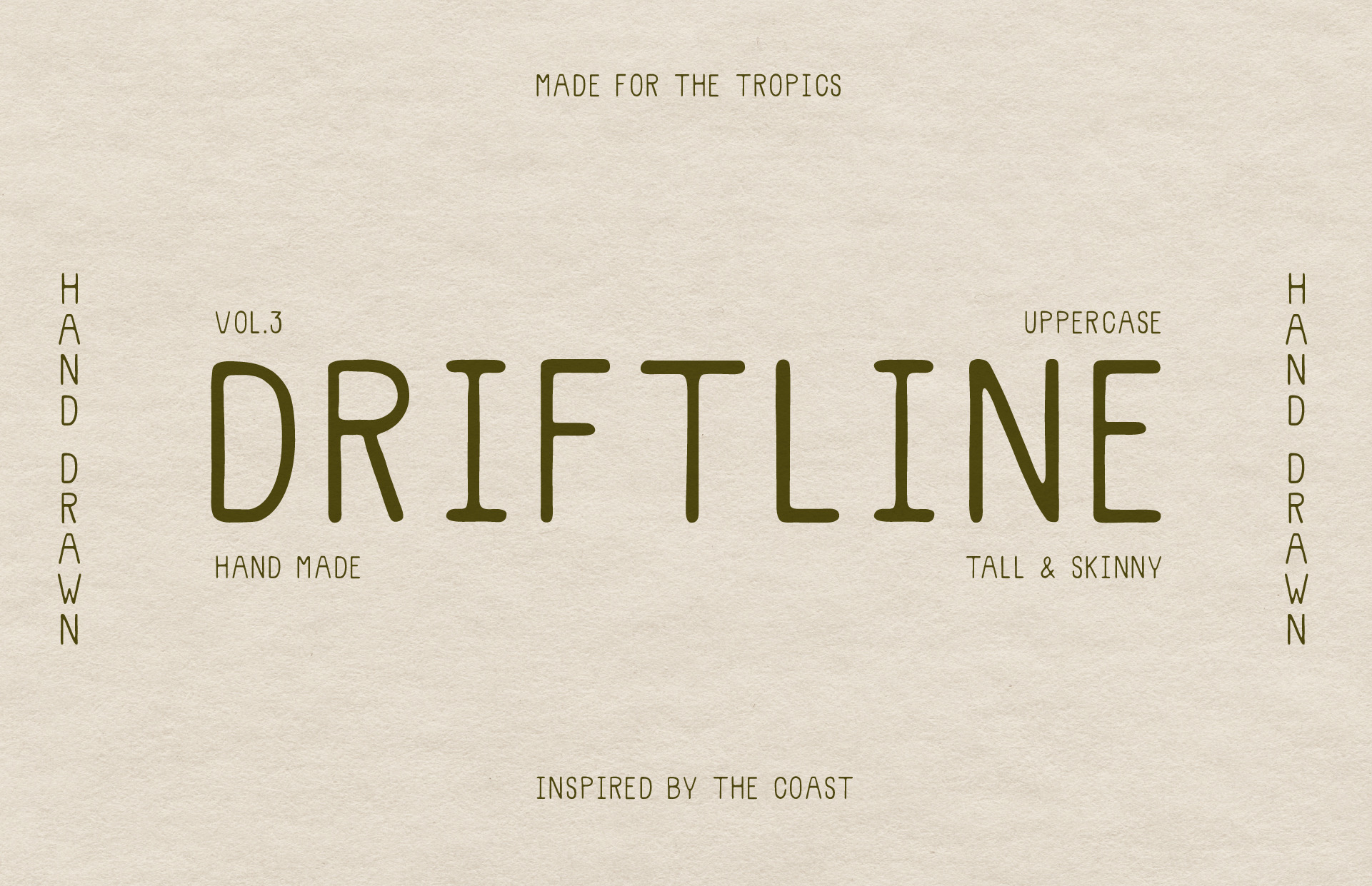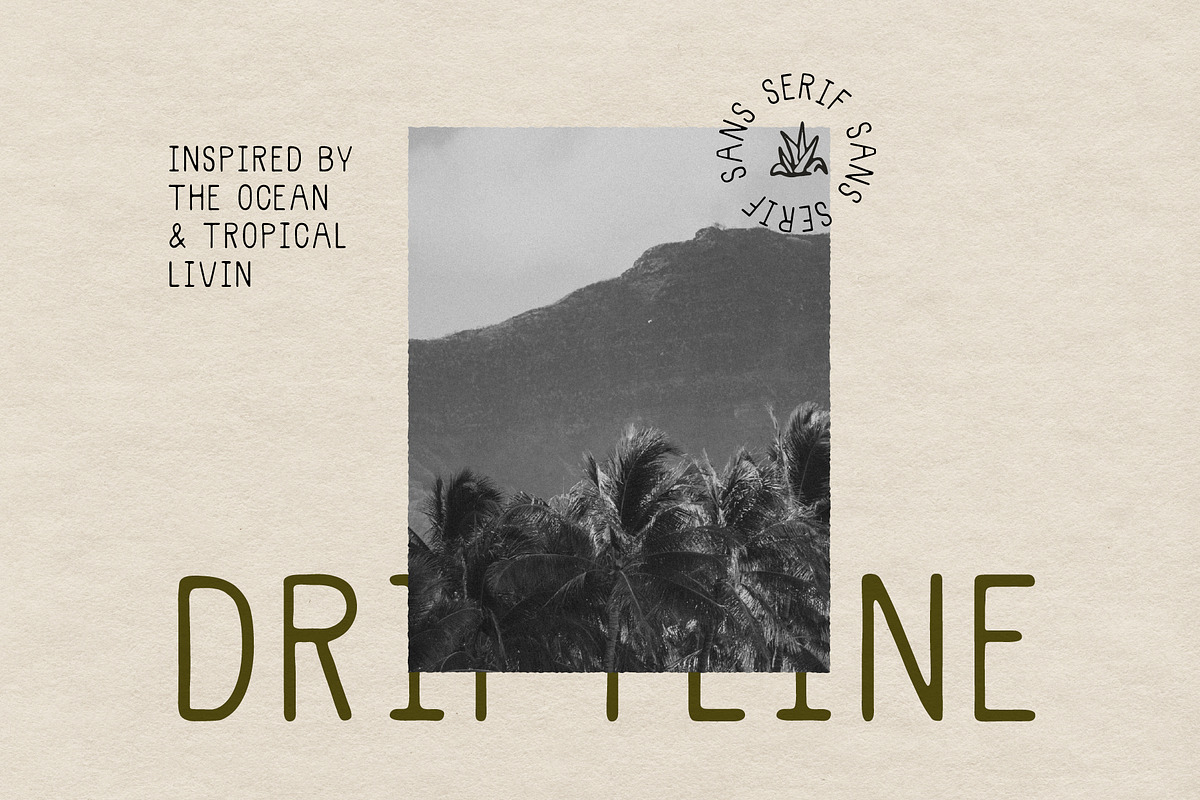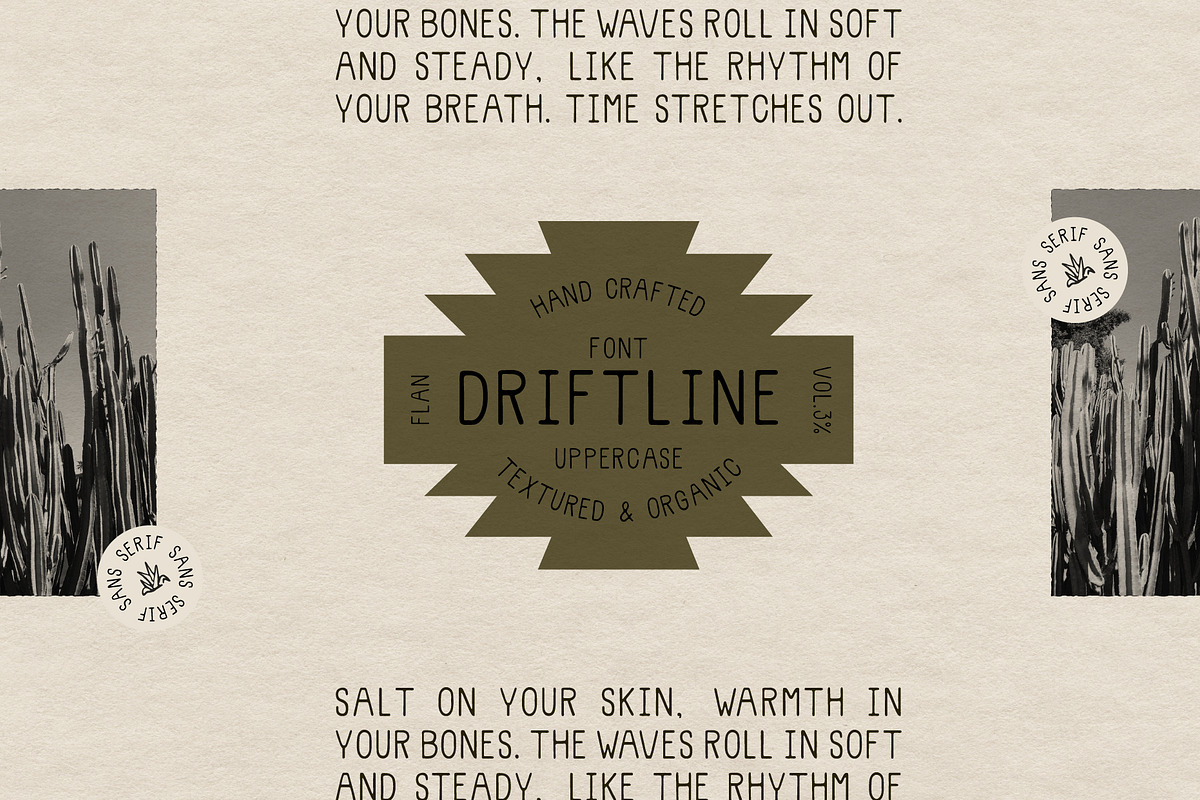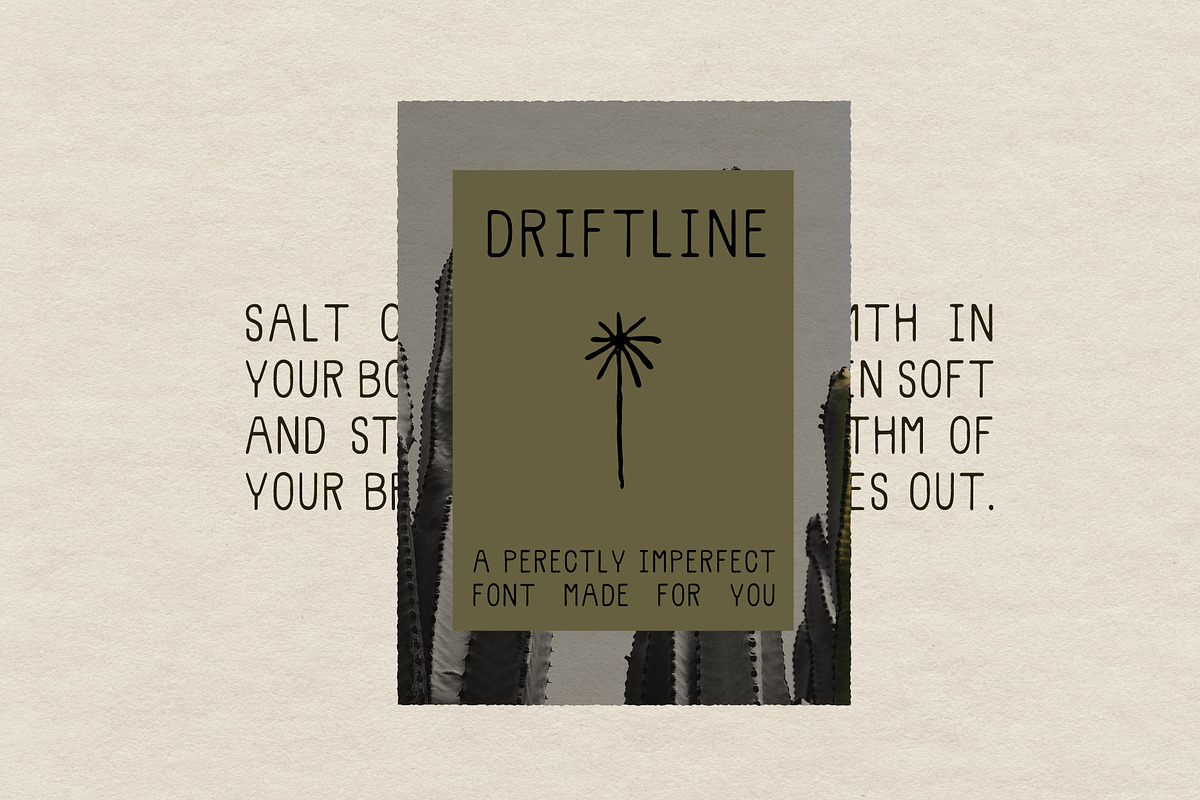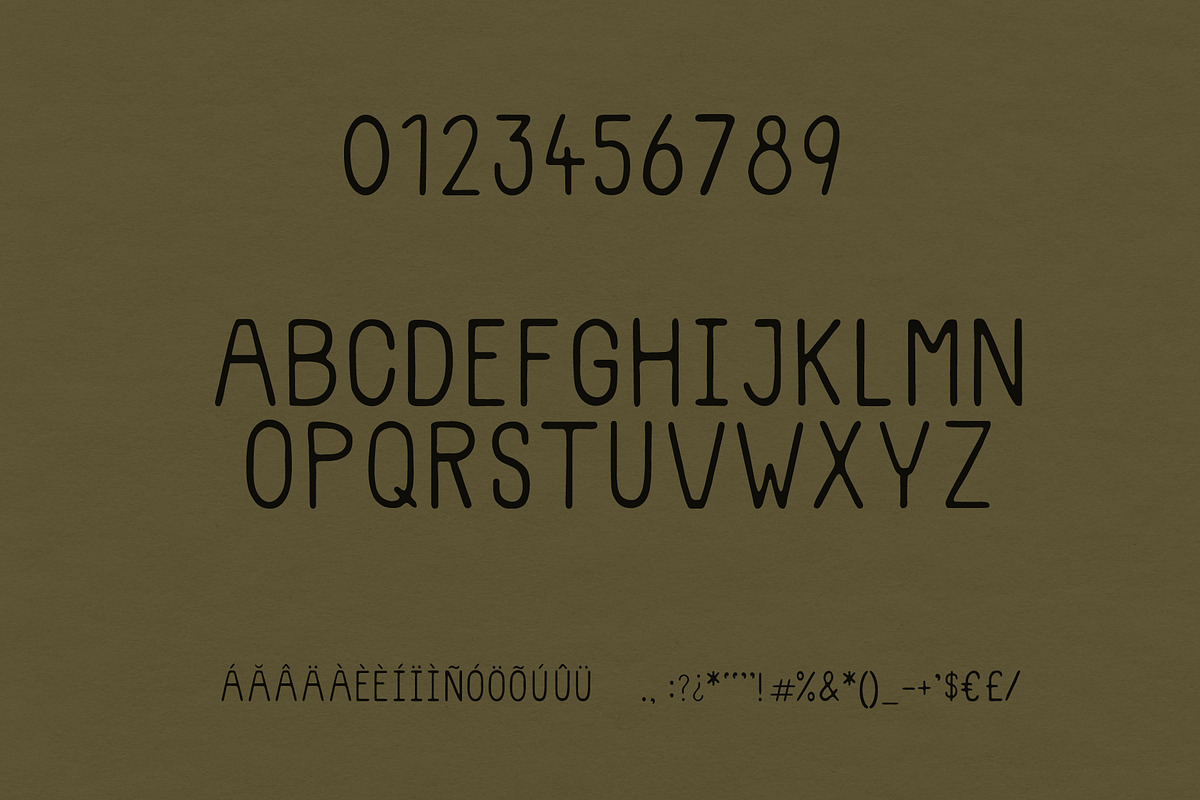
Driftline - Handdrawn organic font
Driftline is a hand-drawn, organic tall display font with a quiet charm and a slightly imperfect rhythm. Crafted entirely by hand for that natural, human feel. With its clean lines and subtle quirks, Driftline adds personality without overpowering your design. Perfect for branding, packaging, labels, zines, or anything that calls for a touch of authenticity.
This all-uppercase font includes A–Z letters, numbers 0–9, basic punctuation, and supports Spanish accents and characters, making it a versatile option for a wide range of creative projects.
Whether you're designing for a small-batch mezcal brand, a cozy café menu, or a sun-faded travel journal, Driftline brings an honest, handcrafted spirit to every layout.